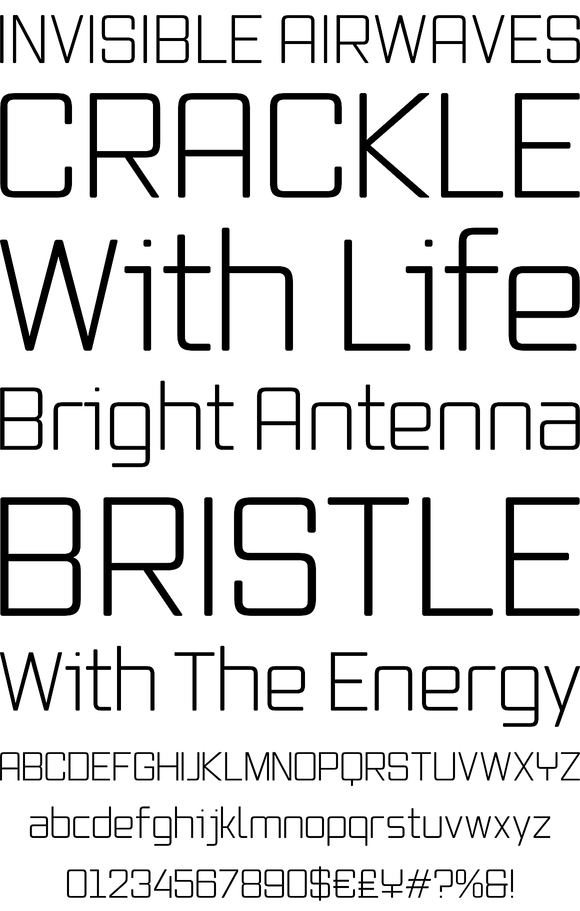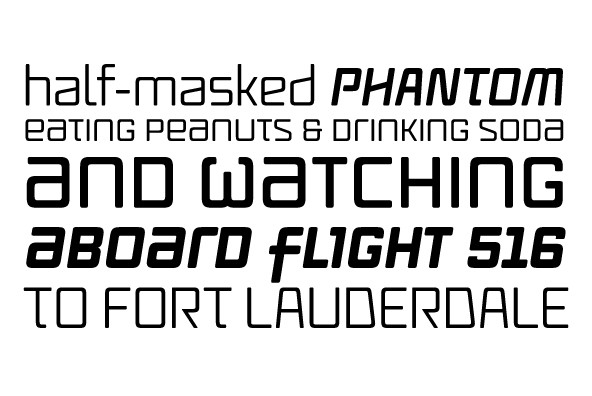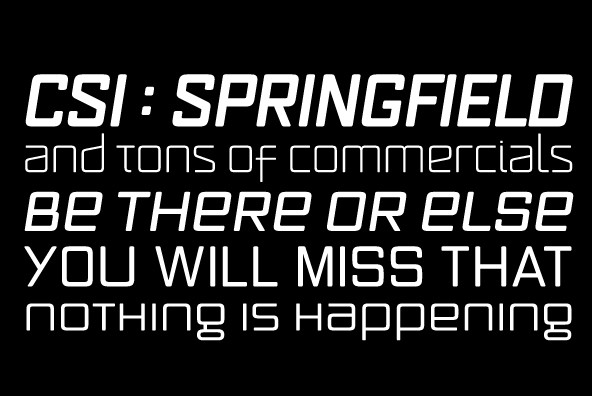
Vox Round
Vox Round is the softer version of the Vox family.
The original brief for Vox was a extensive monoline typeface that can be both precise and friendly, yet contain enough choice of seamlessly interchangeable variants for the user to be able to completely transform the personality of the typeface depending on the application. Basically, a sans serif with applications that range from clean and transparent information relay to sleek and angular branding. When the first version of Vox was released in 2007, it became an instant hit with interface designers, product packagers, sports channels, transport engineers and electronics manufacturers.
This new version is the expanded treatment, which is even more dedicated to the original idea of abundant application flexibility. The family was expanded to five weights and two widths, with corresponding italics, for a total of 20 fonts. Each font contains 1240 glyphs. Localization includes Cyrillic and Greek, as well as extended Latin language support. Built-in OpenType features include small caps, caps to small caps, four completely interchangeable sytlistic alternates sets, automatic fractions, six types of figures, ordinals, and meticulous class-based kerning. This kind of typeface malleability is not an easy thing to come by these days.